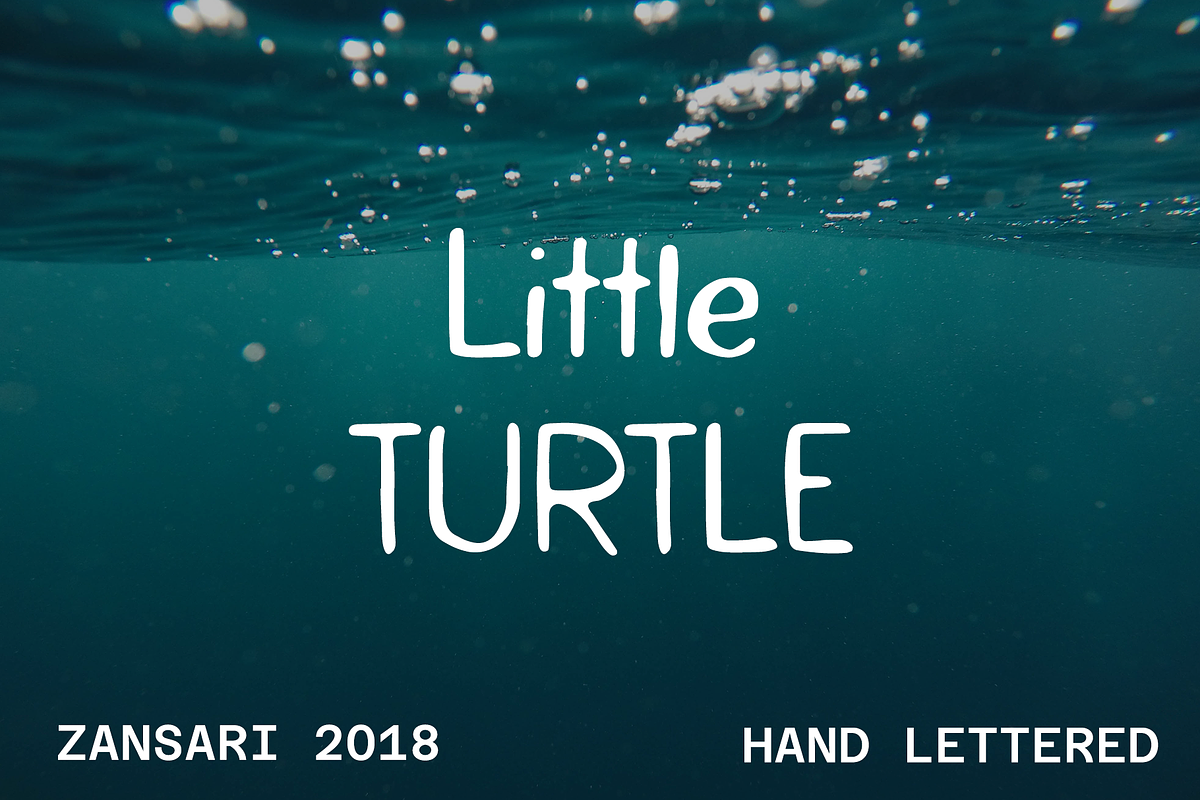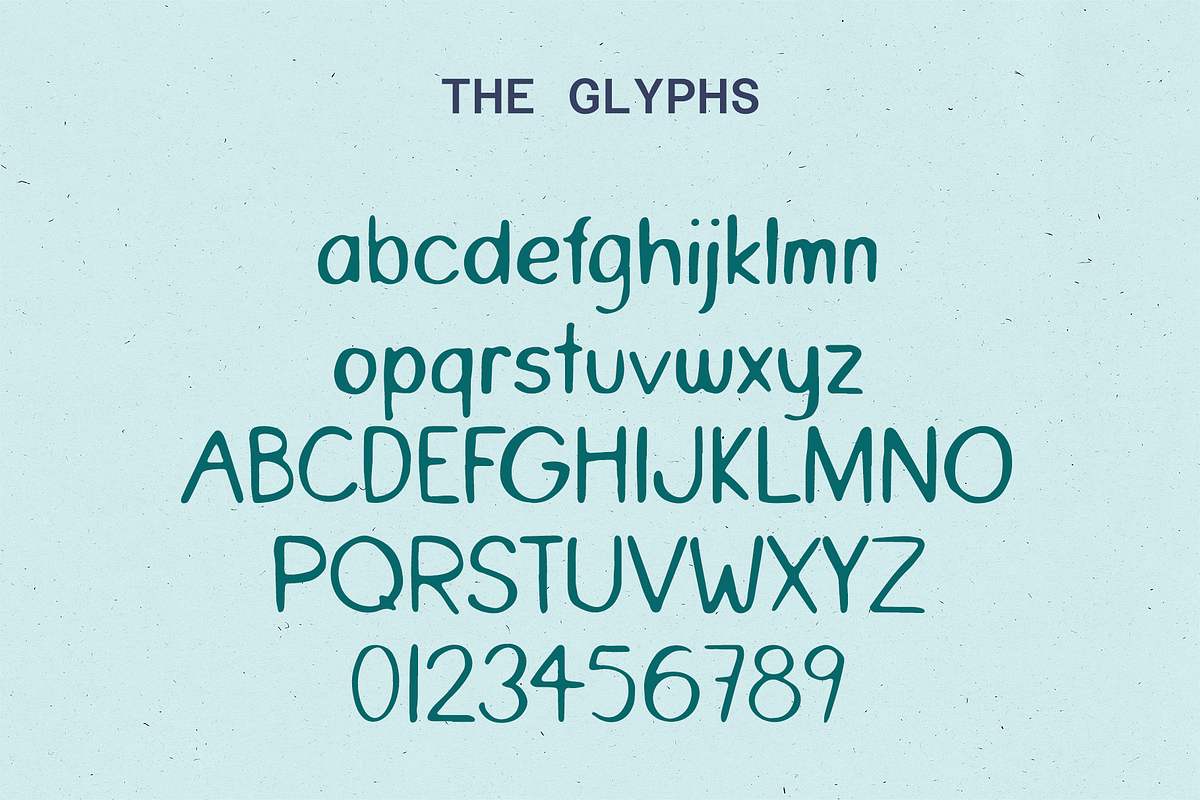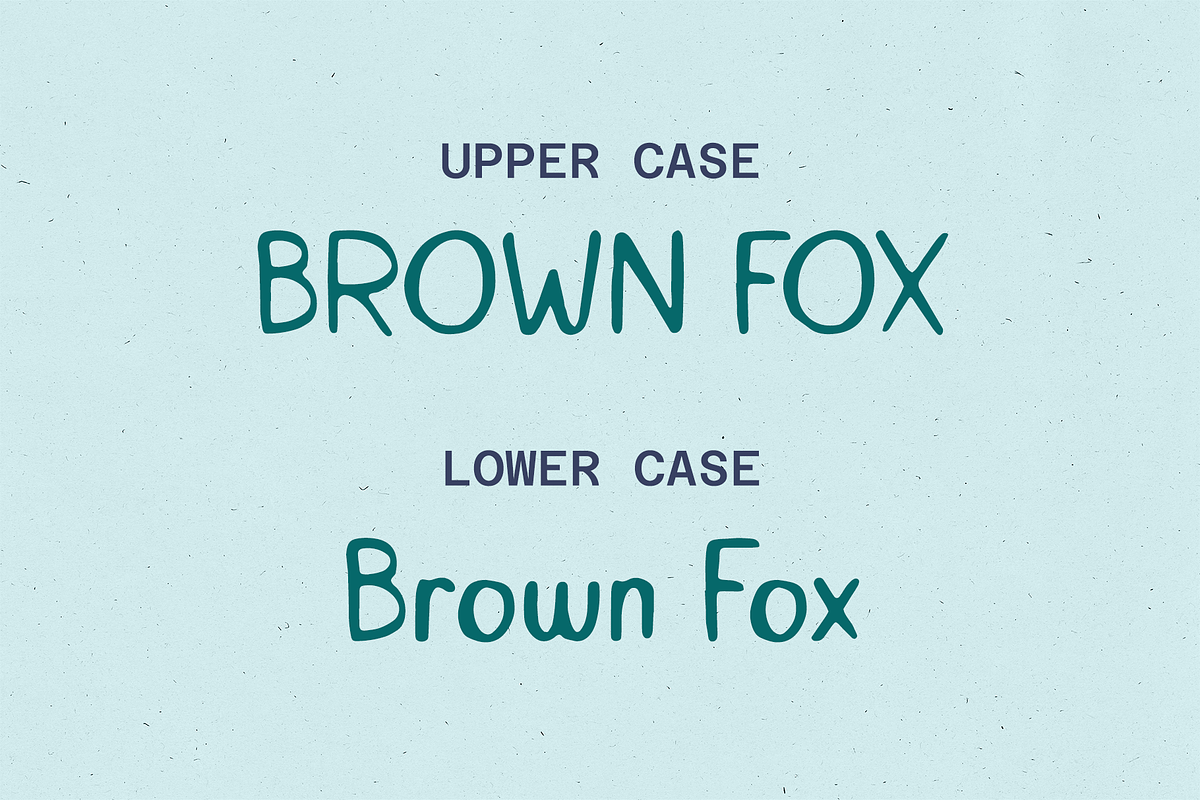
Little turtle hand painted font
Little turtle hand drawn font is a cute and child-like font. The characters were hand drawn, then scanned and vectorised into a digital font file. Little turtle hand drawn font was designed by Zansari font foundry in Auckland, New Zealand
This font would be perfect for advertisements, logos and crafts like quote posters. This has also been quite a popular blog font